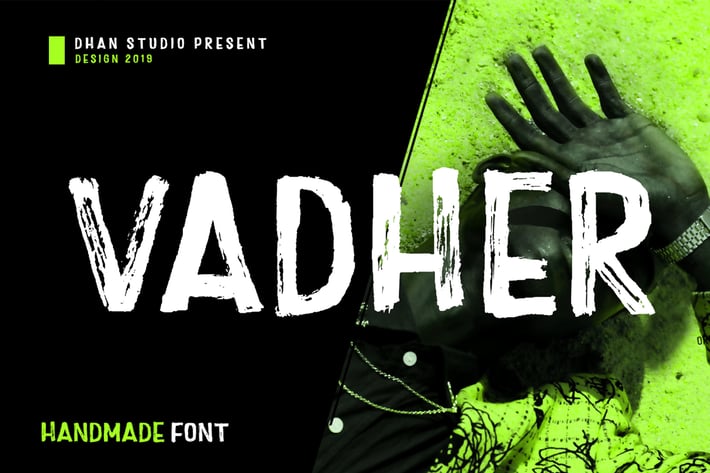
Vadher Font
Vadher is a very cool handmade brush font that is intentionally made with natural texture results, suitable perfectly for invitations, brand projects, logos, greeting cards, news, web, product packaging, posters, blogs, everything including personal charm etc.